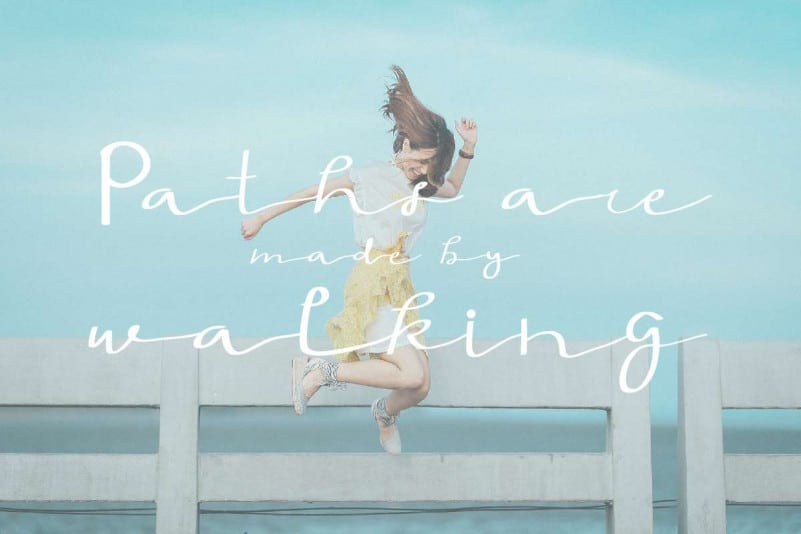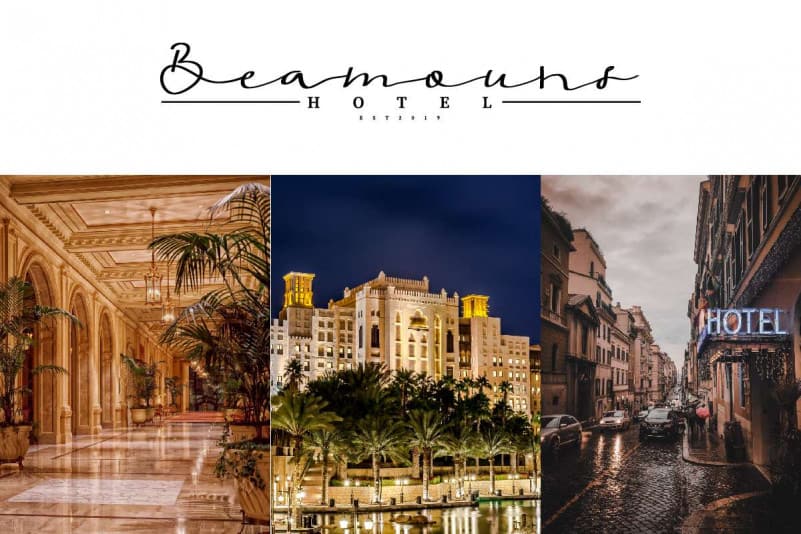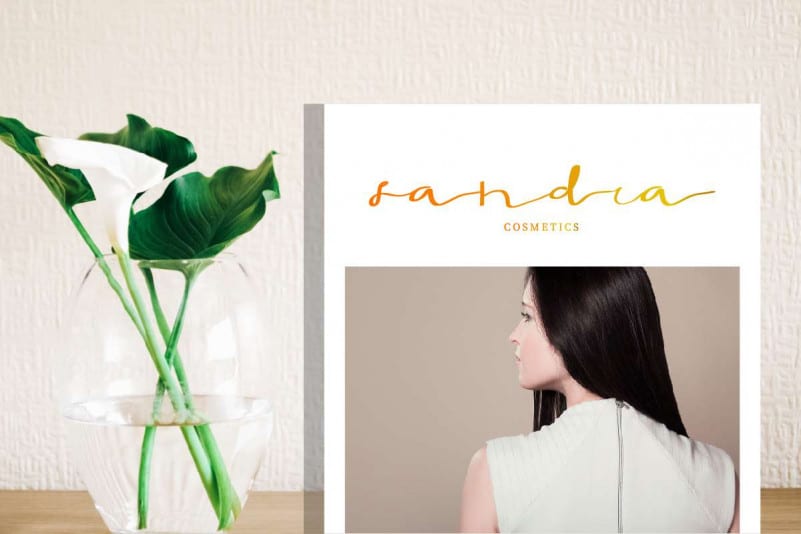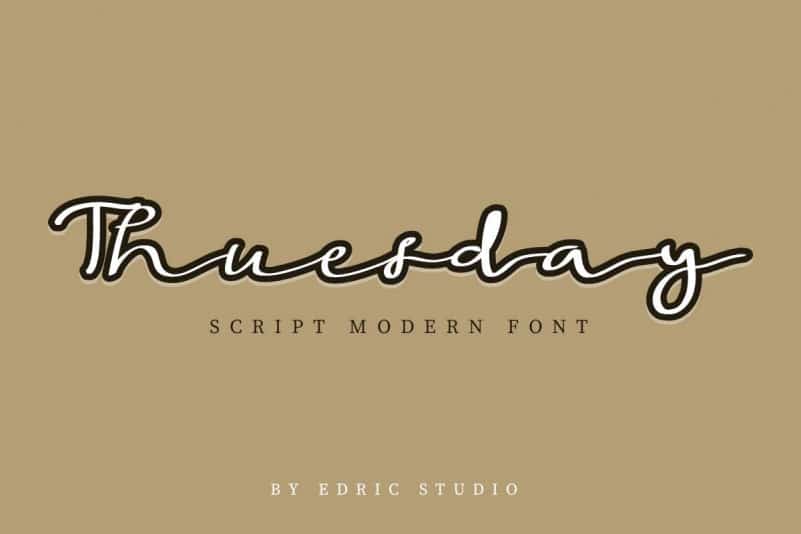
Thuesday Script Modern Font
Thuesday Script Modern Font is an exclusive Signature script typeface with brush pen style. This font has a stunning characters set, perfectly managed with well spaced and kerning. The theme style of this font will be georgeous, feminine elegant, vintage, stylish, sophisticated and classic brush calligraphic style. You wont find any where else, the font like Thuesday Font
Thuesday Script Modern Font will be great for any projects including : branding, logo, stationery, business card, signage, flyer, brochure etc. Almost all industries will be match for this typeface: wedding, events, real estate, architect, law firm, florist, designer, makeup artist, travel, hotel, musician etc